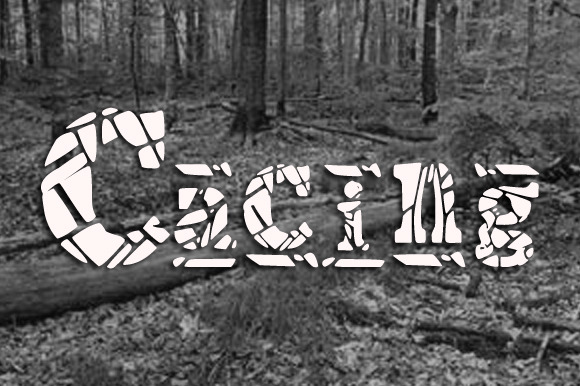
The Cacing Font: A Funky Typeface for Creative Projects
• ✨ Unique and quirky design that’s perfect for creative projects
• ✅ Highly versatile and can be used for various purposes, such as headings, logos, posters, book covers, mugs, bags, newspapers, invitations, and more!
• 💥 Great for attention-grabbing titles and headings
• 🎨 Can be used in a variety of design contexts, from playful to professional
• 🤔 May not be the best choice for body text or long paragraphs, as it’s quite bold and attention-grabbing
• ⚠️ Some characters may not work well at very small font sizes
The Story Behind Cacing Font
The Cacing Font was designed by a talented type designer who’s passionate about creating unique, functional typefaces. Inspired by the beauty of nature and the world around us, this font is designed to add a touch of whimsy and creativity to your design projects.
Font Name Cacing Font
Author Gblack Id
Q: What is the Cacing Font?
A: The Cacing Font is a fun, quirky typeface that’s perfect for creative projects, such as headings, logos, posters, book covers, and more!
Q: Is the Cacing Font easy to read?
A: The Cacing Font is a bold, attention-grabbing typeface that’s best used for titles and headings. While it’s not the most readable font for body text, it’s perfect for adding visual interest to your design projects.